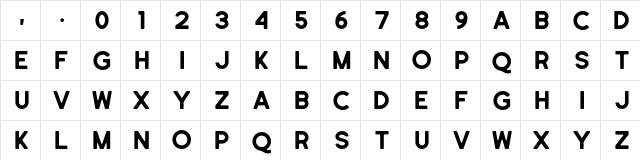
Schramberg Sans Regular
| Foundry | Runsell Studio |
| Designer | Saeful Maarif |
Design Context for Schramberg Sans Typeface
Schramberg Sans takes a measured approach to typography — its balanced proportions and neutral character make it a reliable workhorse for both digital and print work.